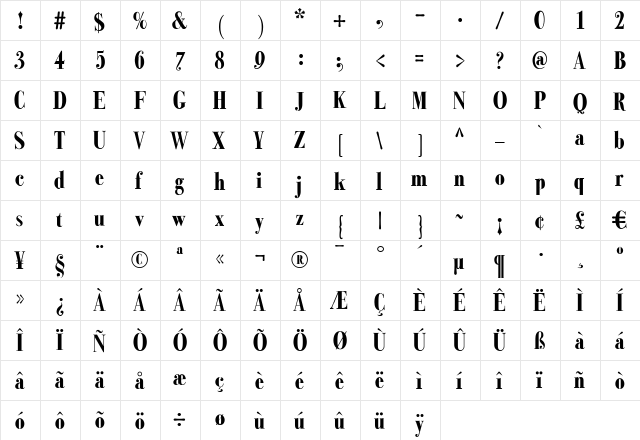
Bodoni Classic Condensed Bold
Design Context for Bodoni Classic Condensed Typeface
Bodoni Classic Condensed has the warm character of retro typography — evoking diners, record sleeves, and the golden age of print advertising. The heavy weight commands attention and anchors typographic hierarchies.
Ideal for diner signage, record shop branding, 70s/80s-themed projects, and heritage product labels.
Font Pairing: Combine Bodoni Classic Condensed with a simple slab or neutral sans — period-accurate companions reinforce the vintage feel without competing for attention.
Pro Tip: Lean into Bodoni Classic Condensed's period character by pairing it with aged paper textures, muted colour palettes, and vintage illustration styles.